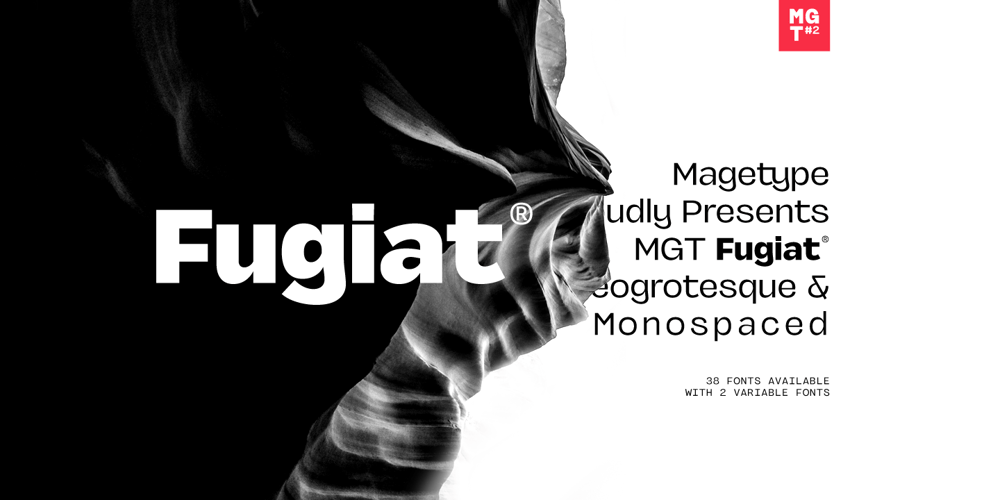
MGT Fugiat
MGT Fugiat font
MGT Fugiat Font Family was designed by Setiadi Karya Pertiwi and published by Magetype. MGT Fugiat contains 40 styles and family package options. MGT Fugiat is a Neo-grotesque font inspired by the 1900s.Apart from that, there is also monospaced.This super clean sans serif is perfect for bodytext, in magazines, websites, and books.Also suitable for book titles and posters.MGT Fugiat Neo-grotesque, there are 20 styles, hairline to heavy.Uprights and Italics.Meanwhile, MGT Fugiat Mono has 18 styles, hairline to black.Uprights and Italic too.Both fonts are also included in Variable Fonts.